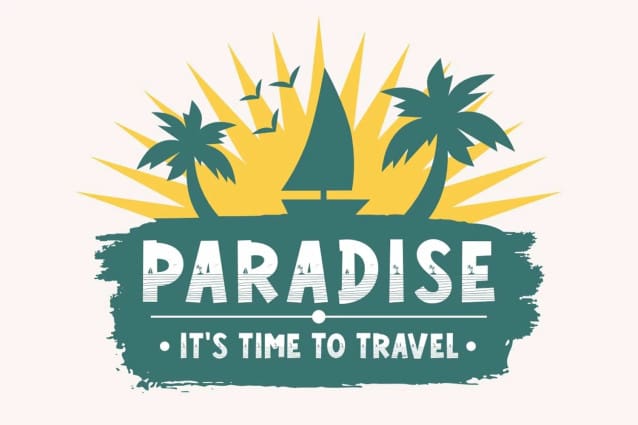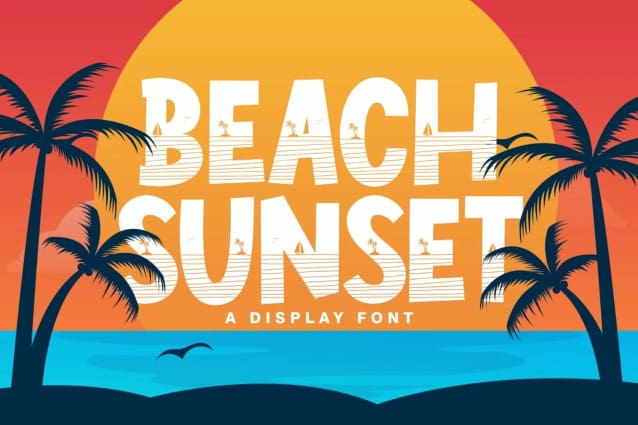
Beach Sunset Font
Beach Sunset Font, is ideal for crafting, branding and decorate your any project. This fonts are perfect for wedding invitation or your blog. Also with their help, you can create a logo or beautiful frame for your home. Or just use for your business, book covers, stationery, marketing, magazines and more.